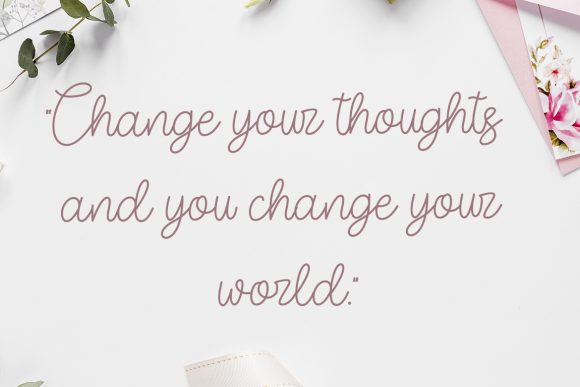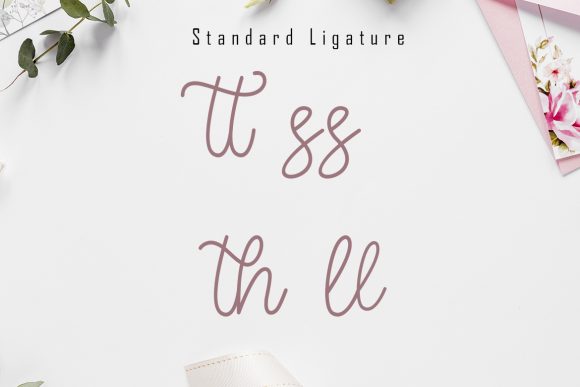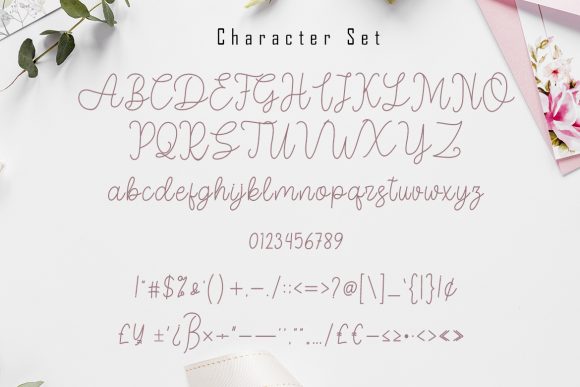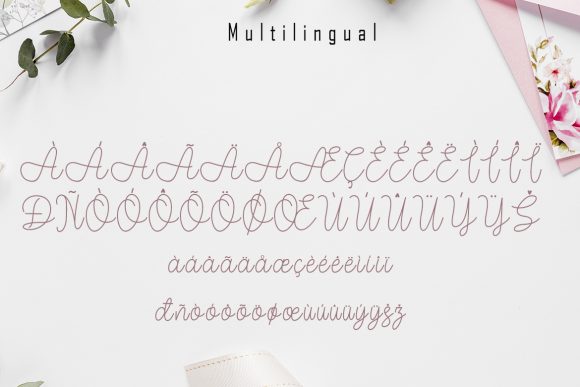
Discover the Timeless Elegance of Aslly Lastty Font
Have you ever found yourself lost in a sea of ideas, desperately searching for the perfect font to bring your creative vision to life? That’s exactly what happened to me when I stumbled upon the breathtaking Aslly Lastty Font. Its flowing handwritten style and elegant touch captured my heart, and I knew I had to share it with the world.
Aslly Lastty Font is more than just a font – it’s a statement piece that can elevate any project to new heights. Whether you’re designing a wedding invitation, a logo, or a social media graphic, this font is sure to add a touch of sophistication and class. For designers, Aslly Lastty Font is a valuable asset that can help you stand out from the crowd and leave a lasting impression on your audience.
Aslly Lastty Font Key Features
- Unique Characteristics: This font features a unique, handwritten style with irregular strokes and letterforms, giving it a personal and artistic touch. It’s ideal for use in creative projects that require a touch of whimsy and personality.
- Legibility: Despite its unique style, Aslly Lastty Font is designed to be highly legible, making it suitable for use in body text, headings, and other areas where readability is crucial.
Aslly Lastty Font Review
I recently had the chance to work with the Aslly Lastty Font, and I must say it’s a unique addition to any design project. ✨ The font’s quirky, handwritten style is perfect for creating a friendly and approachable atmosphere, making it ideal for blog posts, social media graphics, or any content that requires a more casual tone.
The font’s versatility is also noteworthy, as it works well in both digital and print formats. ✨ The bold and italic variations add an extra layer of expressiveness, allowing designers to convey a wide range of emotions and moods.
While the Aslly Lastty Font is a great choice for many projects, there are a few limitations to consider: ⚠️ The font’s lack of robustness can make it challenging to read in smaller font sizes, and the irregular letterforms may not be suitable for projects that require a high level of precision.
Overall, I think the Aslly Lastty Font is a solid choice for designers looking to add a touch of whimsy to their projects. While it may not be the best fit for every project, its unique style and versatility make it a valuable addition to any design toolkit.
Design Considerations
- Use in conjunction with clear typography for maximum readability.
- Choose bold and italic variations to add emphasis and visual interest.
- Be mindful of font sizes, as the font’s lack of robustness can affect readability.
The Aslly Lastty font is a versatile and elegant font suitable for a variety of uses, including:
- Brand logos and identity
- Artistic and creative projects